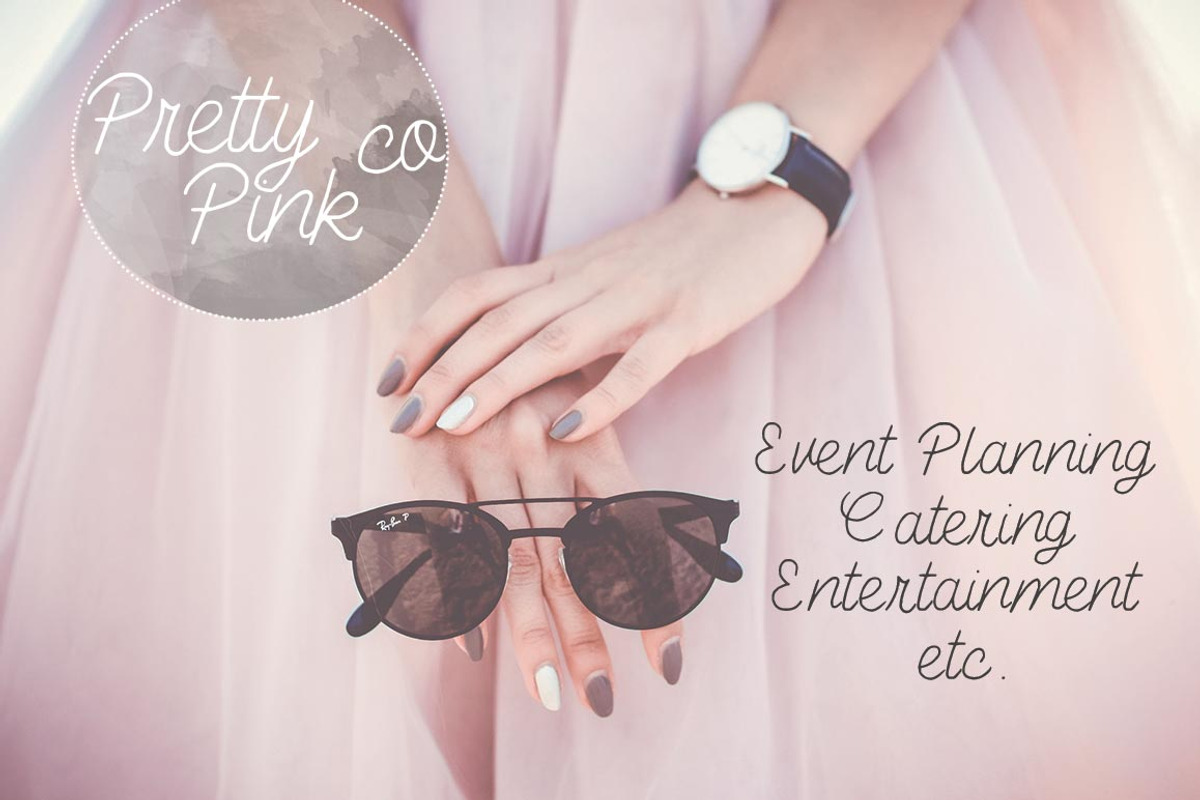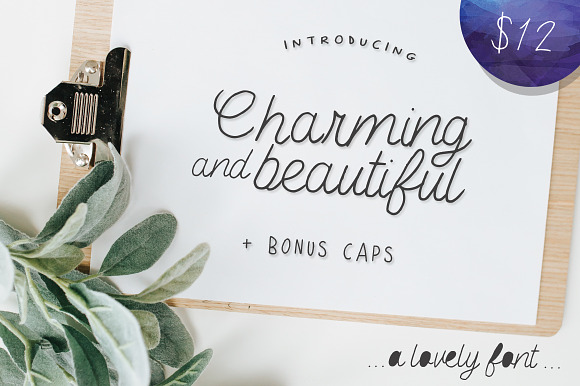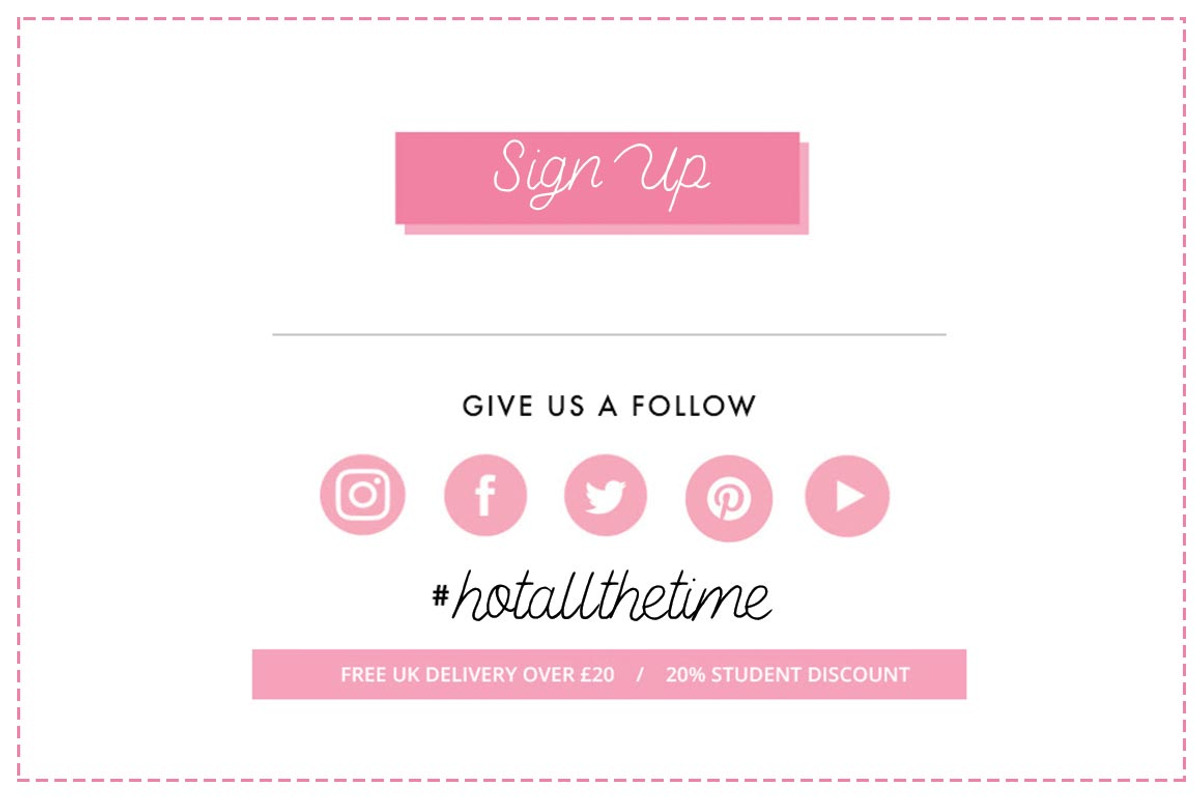
Charming and Beautiful Font
Charming and beautiful is a fabulous font that looks clean and hand-written. Perfect for bloggers, influencers and logo designers alike! :)
Why Charming and Beautiful Font is worth a look
Charming and Beautiful Font by Salt & Pepper Designs fits naturally into Branding, posters, packaging, typography.